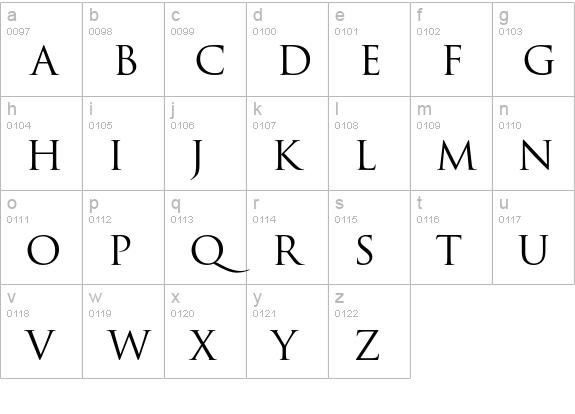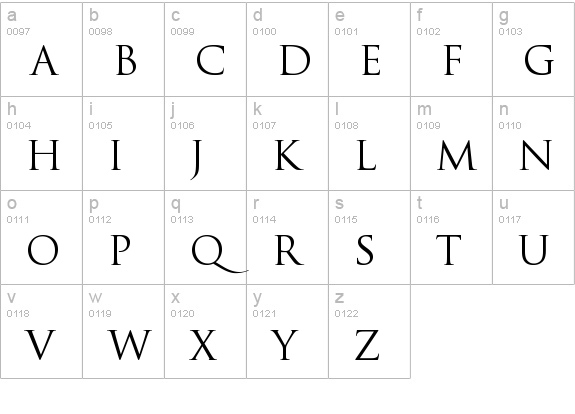
Trajan Regular Font Details
Trajan Regular is the standard, neutral variant in the Trajan typeface family \xE2\x80\x94 well suited to general body text, paragraphs, and standard typographic work.
Trajan Regular is a classic and timeless font that exudes elegance and sophistication. With its clean lines and balanced proportions, this font is perfect for a wide range of design projects. Whether used in print or digital media, Trajan Regular adds a touch of refinement and professionalism. This font features a strong and bold aesthetic, making it ideal for headlines, titles, and logos. It commands attention and instantly grabs the viewer's eye, making it a popular choice among designers and typographers alike. One of the best aspects of Trajan Regular is that it is freely available to download at FontsMarket.com. This means that you can easily access and utilize this stunning font without any cost. Whether you are a professional designer or an aspiring artist, having access to high-quality fonts like Trajan Regular can greatly enhance your creative endeavors. With its versatility and timeless appeal, Trajan Regular can be used in a variety of design projects, including advertisements, posters, packaging, and more. Its bold and strong presence allows it to effortlessly communicate messages with impact and clarity. In addition to its aesthetic qualities, Trajan Regular is also highly legible, making it a practical choice for body text and longer passages. Its carefully crafted letterforms ensure ease of reading, even at smaller sizes. When it comes to typography, having access to a font like Trajan Regular can make all the difference. Its free availability on FontsMarket.com allows designers and creatives to experiment and explore the possibilities that this font offers. Whether you are looking to create a stunning visual identity or simply enhance the overall aesthetic of your design, Trajan Regular is a font that delivers in both style and functionality.